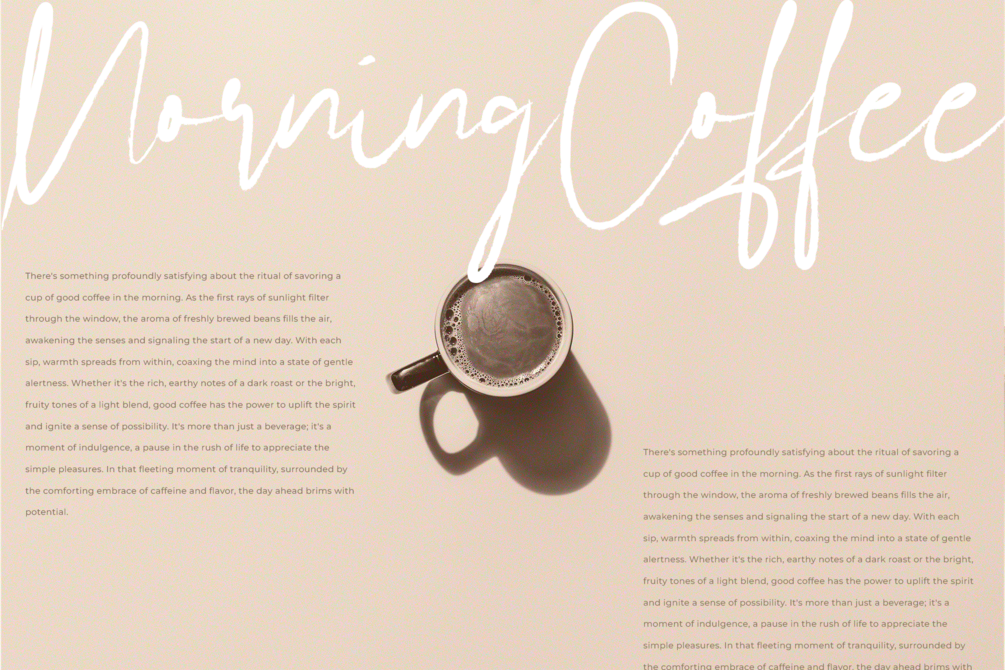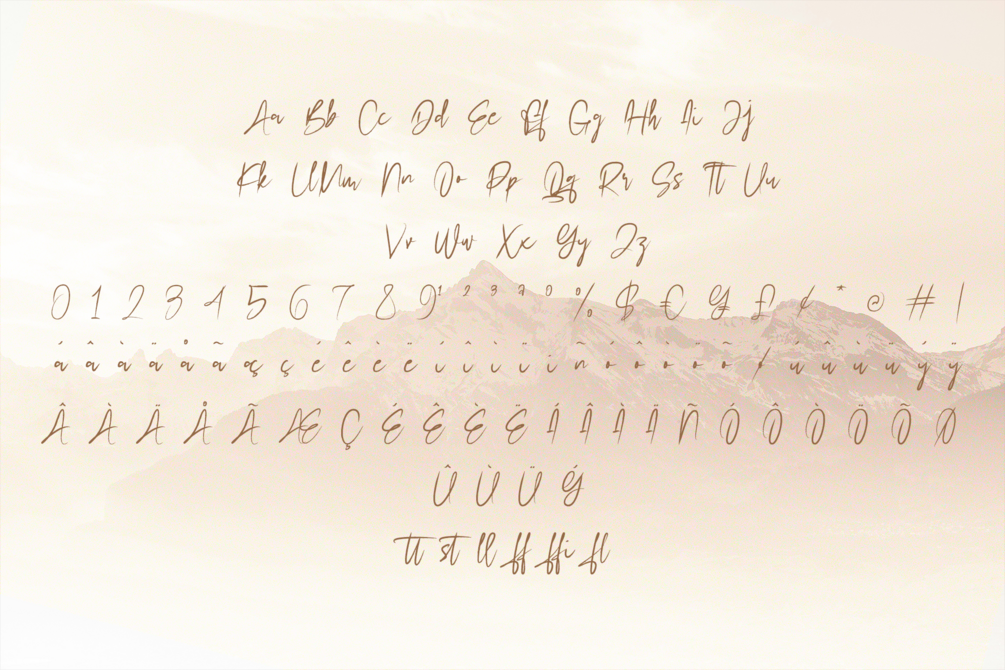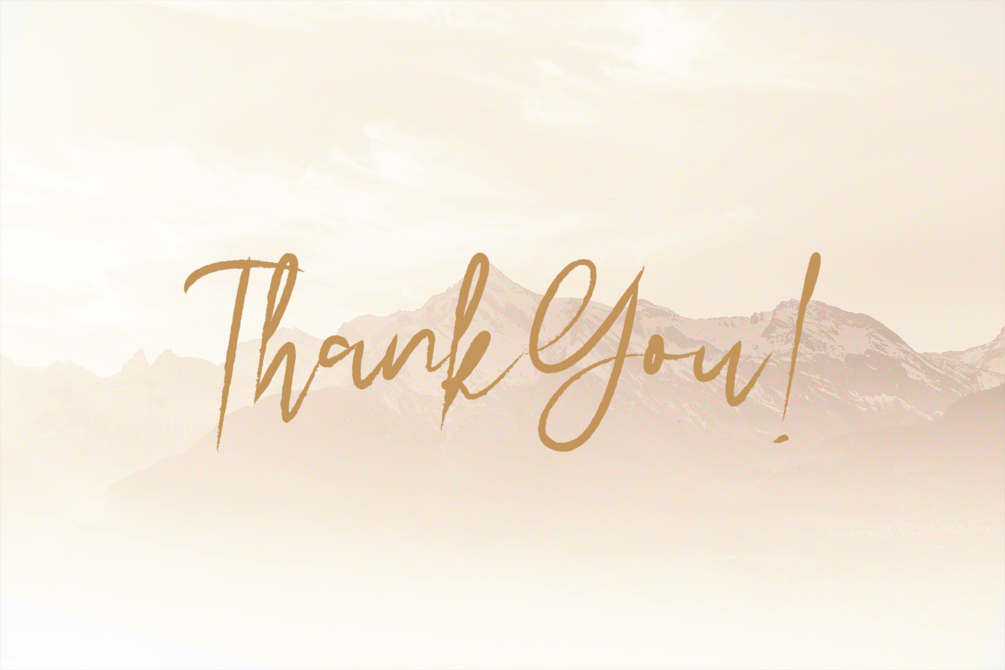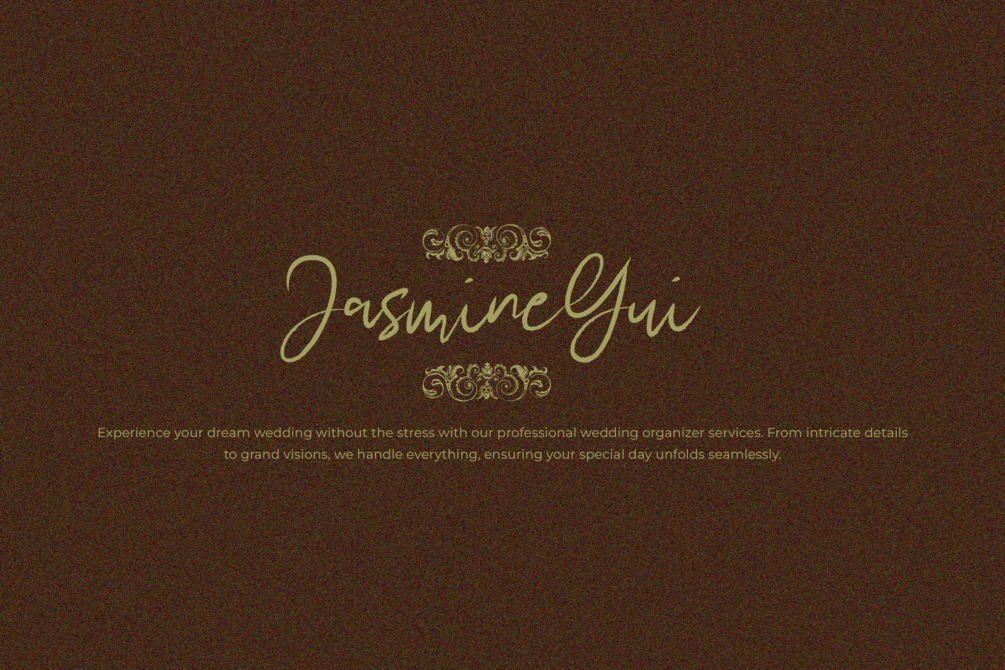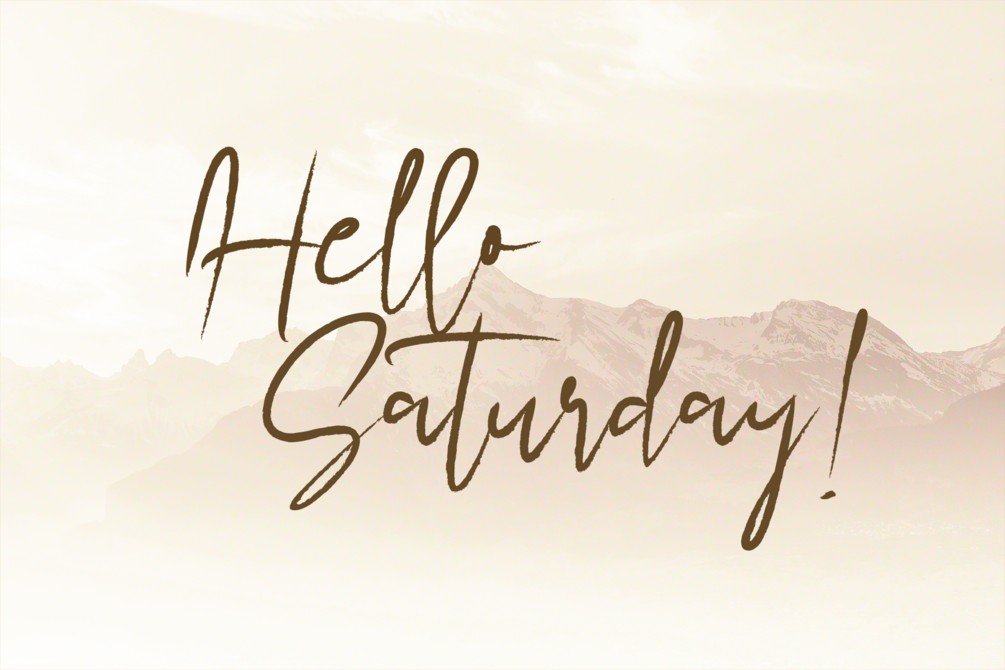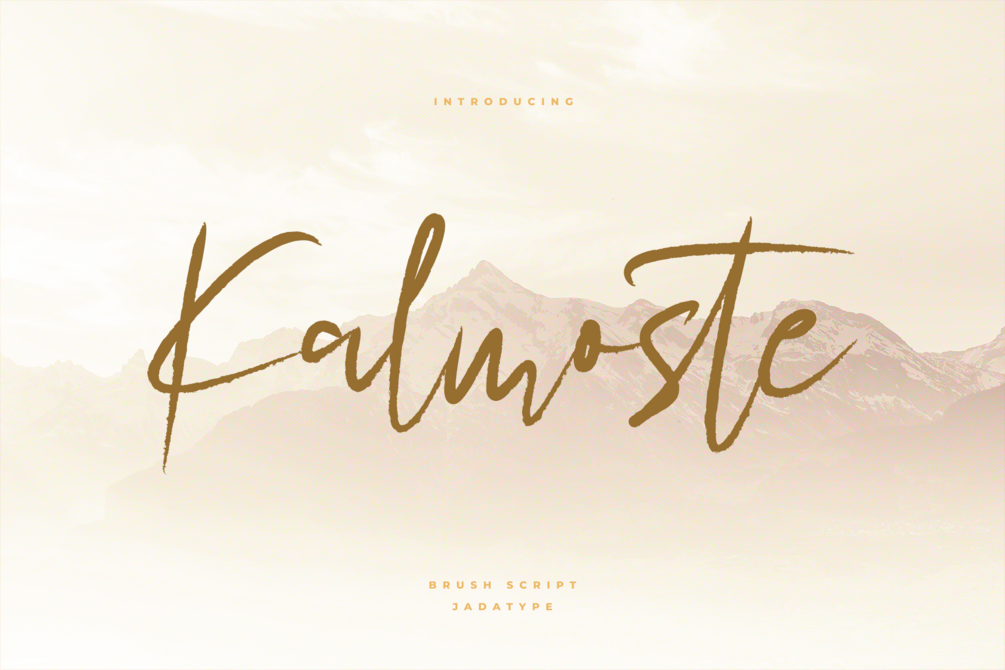
Kalmoste Font
Kalmoste is a script font that comes with an stylish brush signature. suitable for product, Branding, social media, logotype and so on. contains standard English letters, numbers, punctuation, and several accents that support multilingualism.